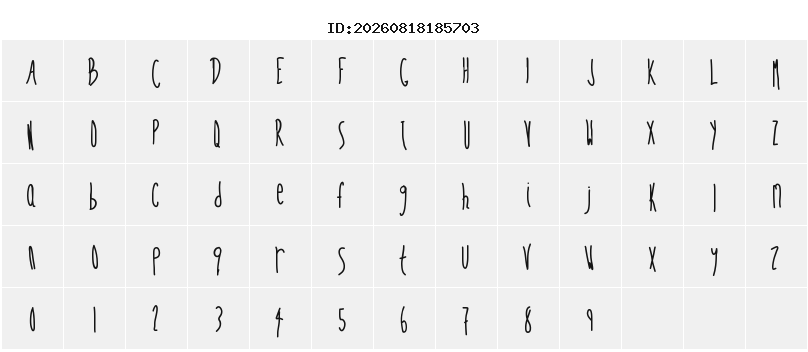
SkinnyVanillaLatte Preview
About SkinnyVanillaLatte.ttf
SkinnyVanillaLatte.ttf is a modern, elegant sans-serif font designed for ultimate readability and visual harmony. Perfect for branding, headlines, web design, and print materials.